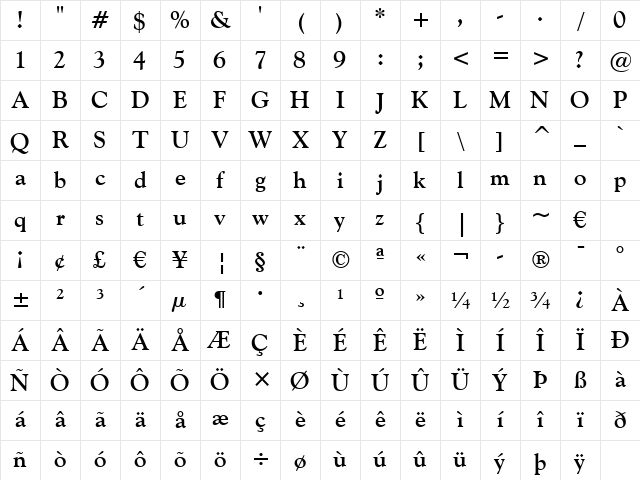
GoudyOlSt BT Bold
GoudyOlSt BT Family
GoudyOlSt BT Bold
Complete GoudyOlSt BT Bold glyph index. Displaying only characters natively supported by GoudyOlSt BT Bold font.
Design Context for GoudyOlSt BT
GoudyOlSt BT is a composed and adaptable typeface that performs quietly and consistently across a wide range of design contexts. Its bold stroke weight gives it real presence on the page.
Pro Tip: Use GoudyOlSt BT in both headline and body roles to test its range before committing to a single application.